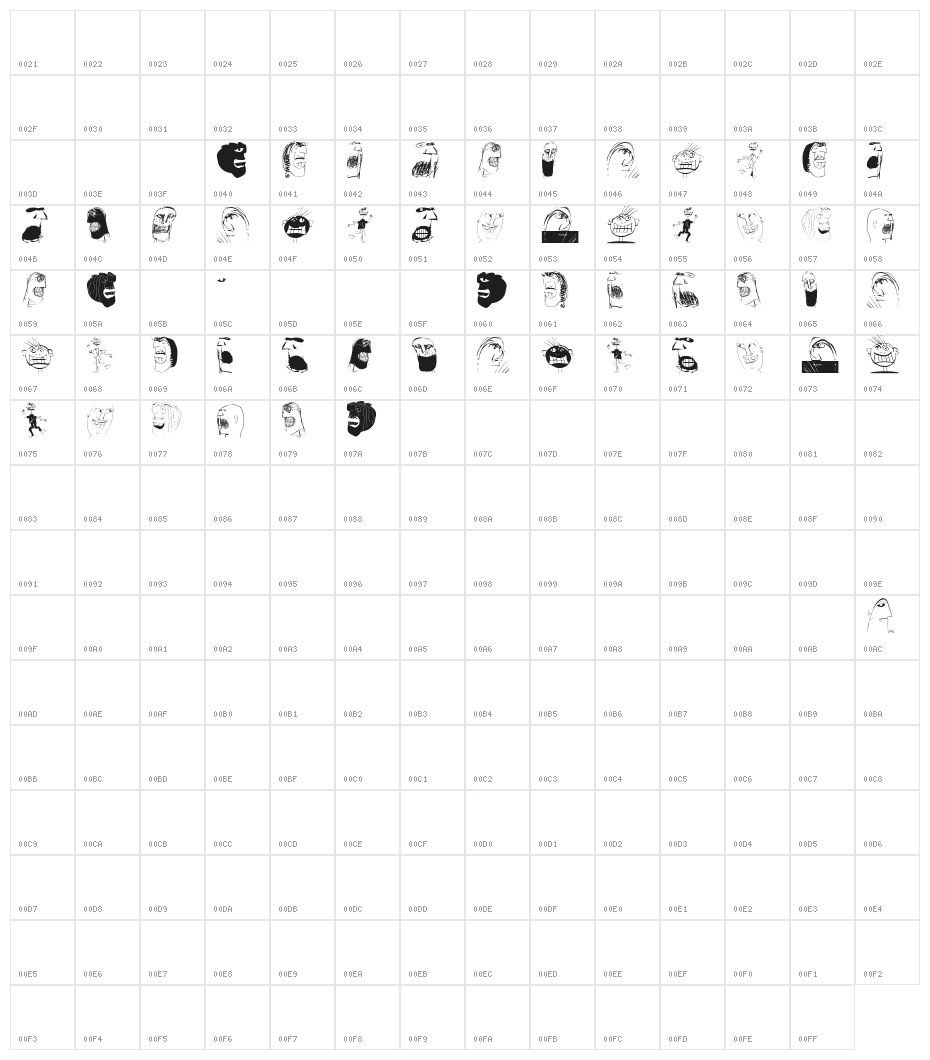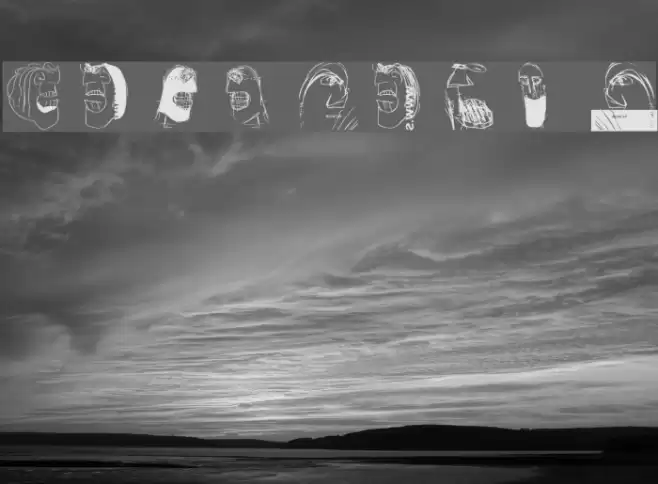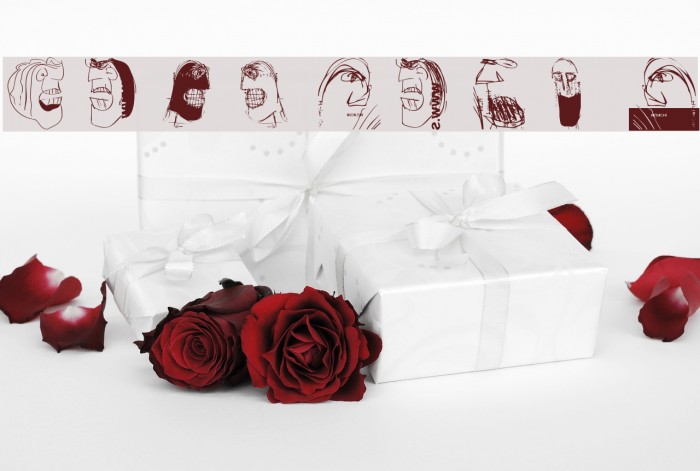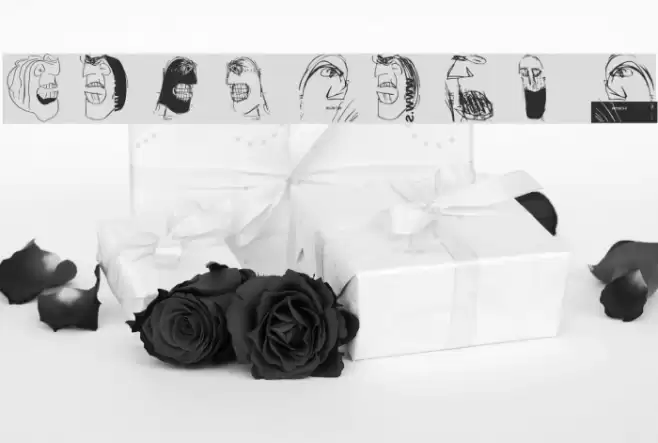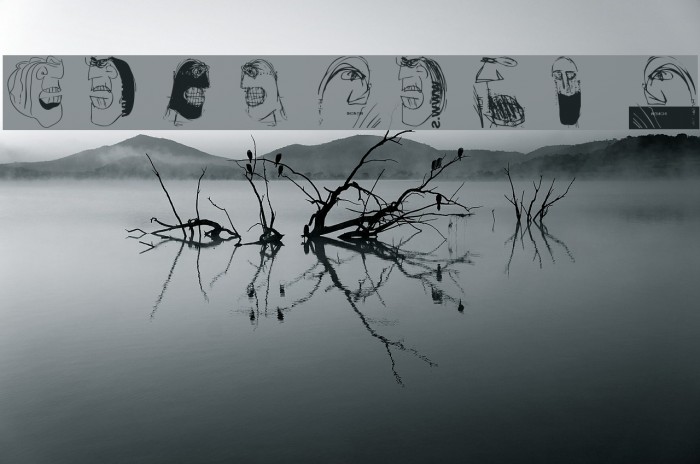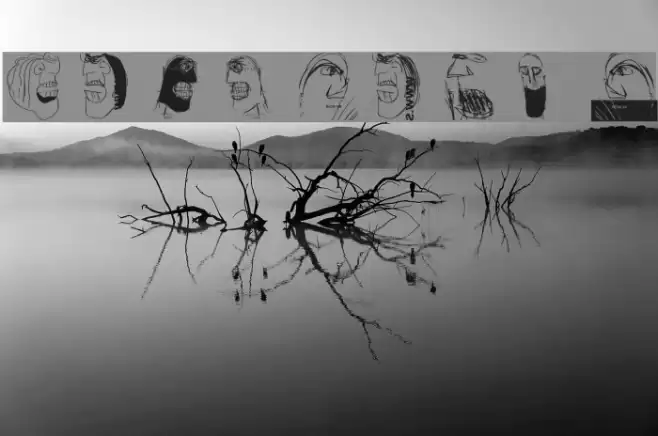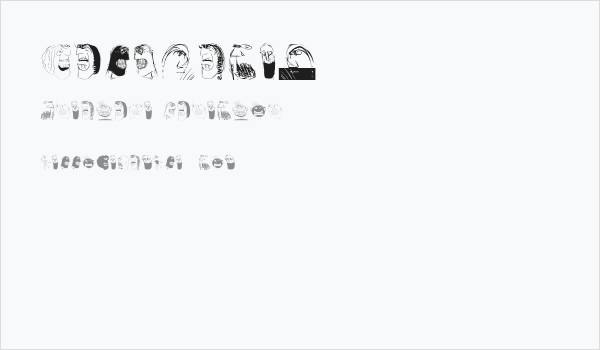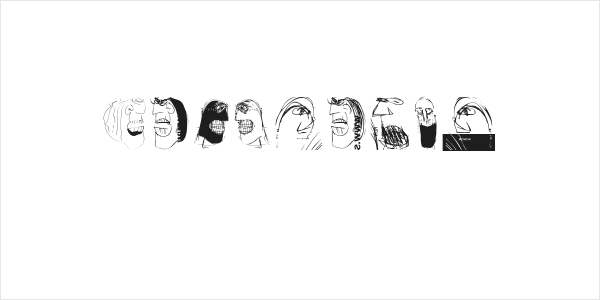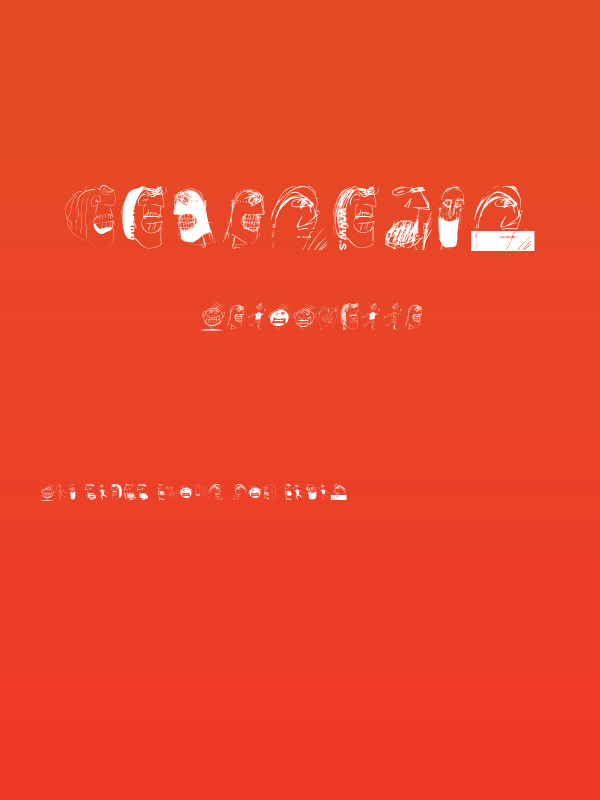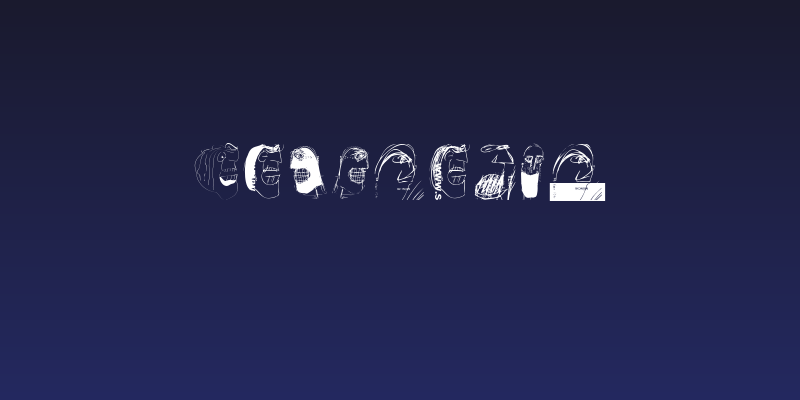
WildFaces Font
WildFaces Description
A highly decorative and whimsical font where each character is represented by a unique, hand-drawn cartoon face or figure, giving a playful and expressive appearance. The glyphs vary greatly in shape and style, with exaggerated features and a sketch-like quality.
| Overall Style | Decorative, Whimsical, Playful |
| Use Case | Logos, Headlines, Posters, ChildrenΓ’β¬β’s materials |
| Proposed Projects | ChildrenΓ’β¬β’s books, comic titles, party invitations, posters, creative branding, novelty merchandise. |